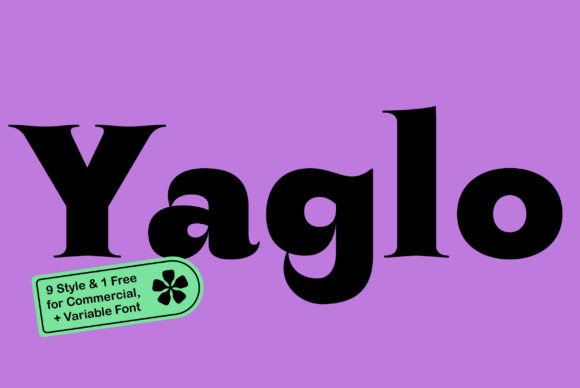
The Yaglo Font collection is the ultimate display font powerhouse, boasting a dynamic and expressive character that will ignite your designs with a unique fishing rod-like concept. Its consistent rhythmic curve, sharpened at the ends, captivates the eye and adds a touch of intrigue to any project.
Immerse yourself in the world of Yaglo, where imagination and creativity intertwine. This font family seamlessly adapts to a myriad of applications, from branding projects and logo designs to apparel branding and product packaging. Elevate your magazine headers or transform your images with a stylish text overlay that commands attention.
With its unparalleled readability even on the web, Yaglo empowers you to create impactful online experiences. Engage your audience with crystal-clear messages that resonate and inspire. Let Yaglo be your secret weapon for creating designs that leave a lasting impression.